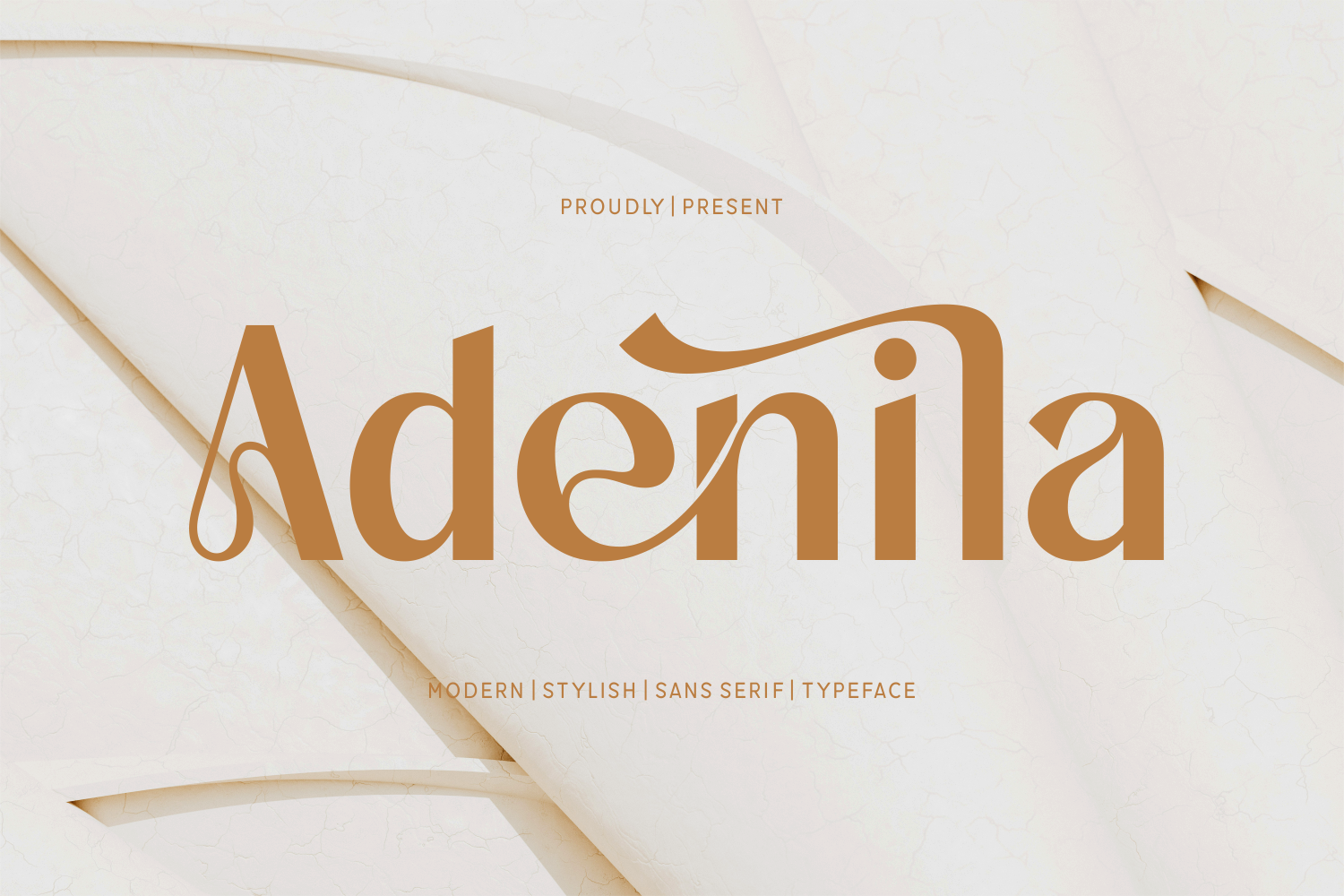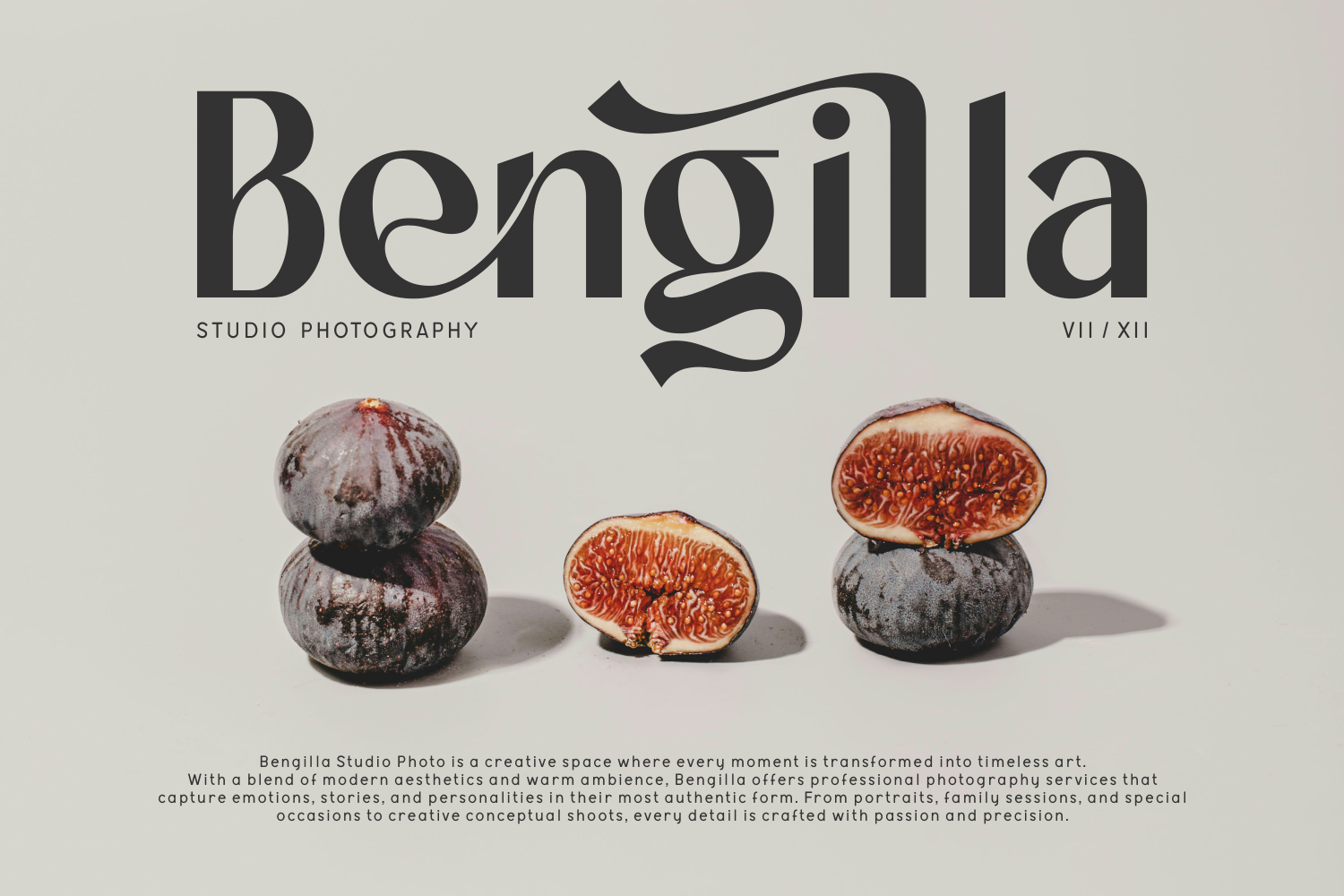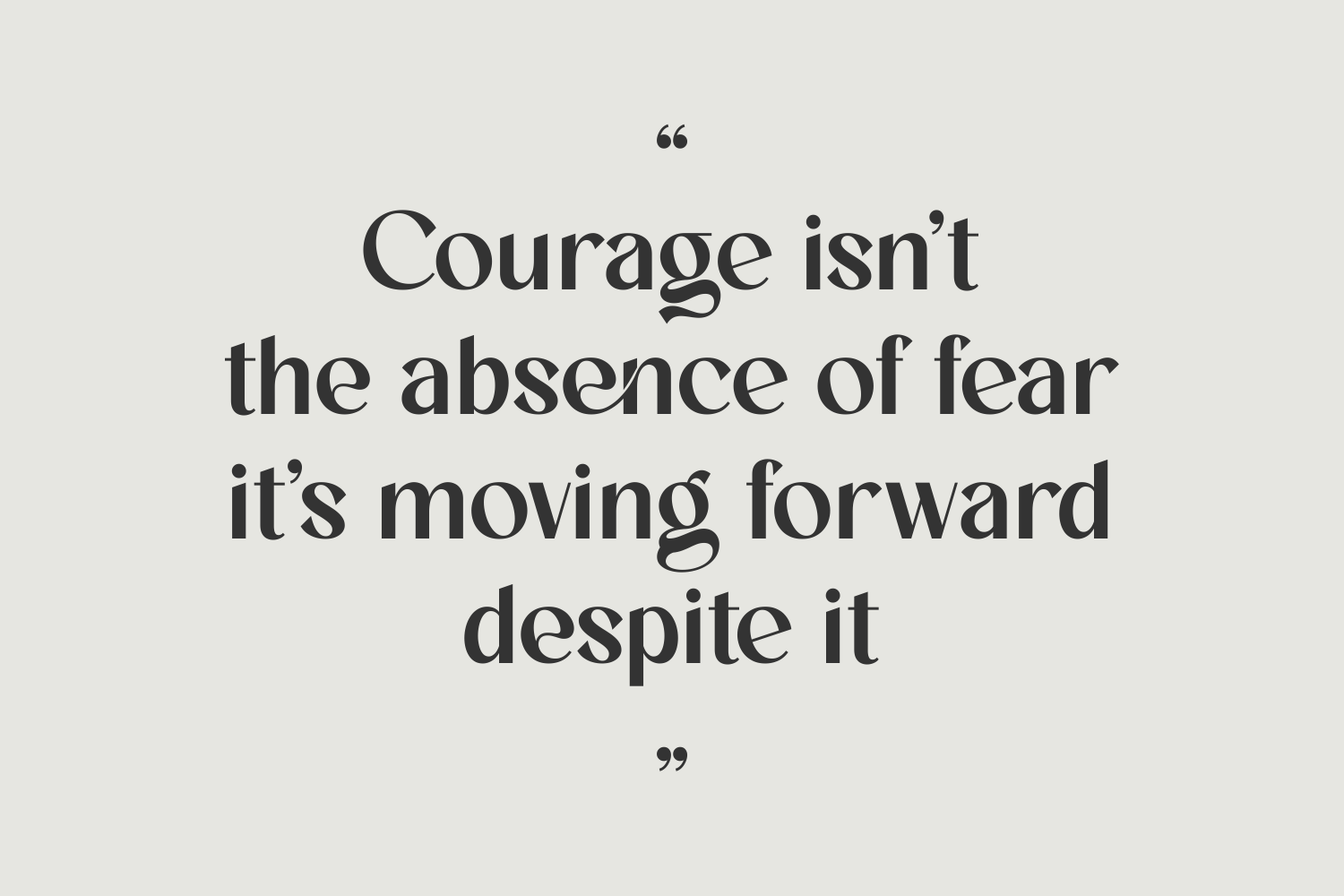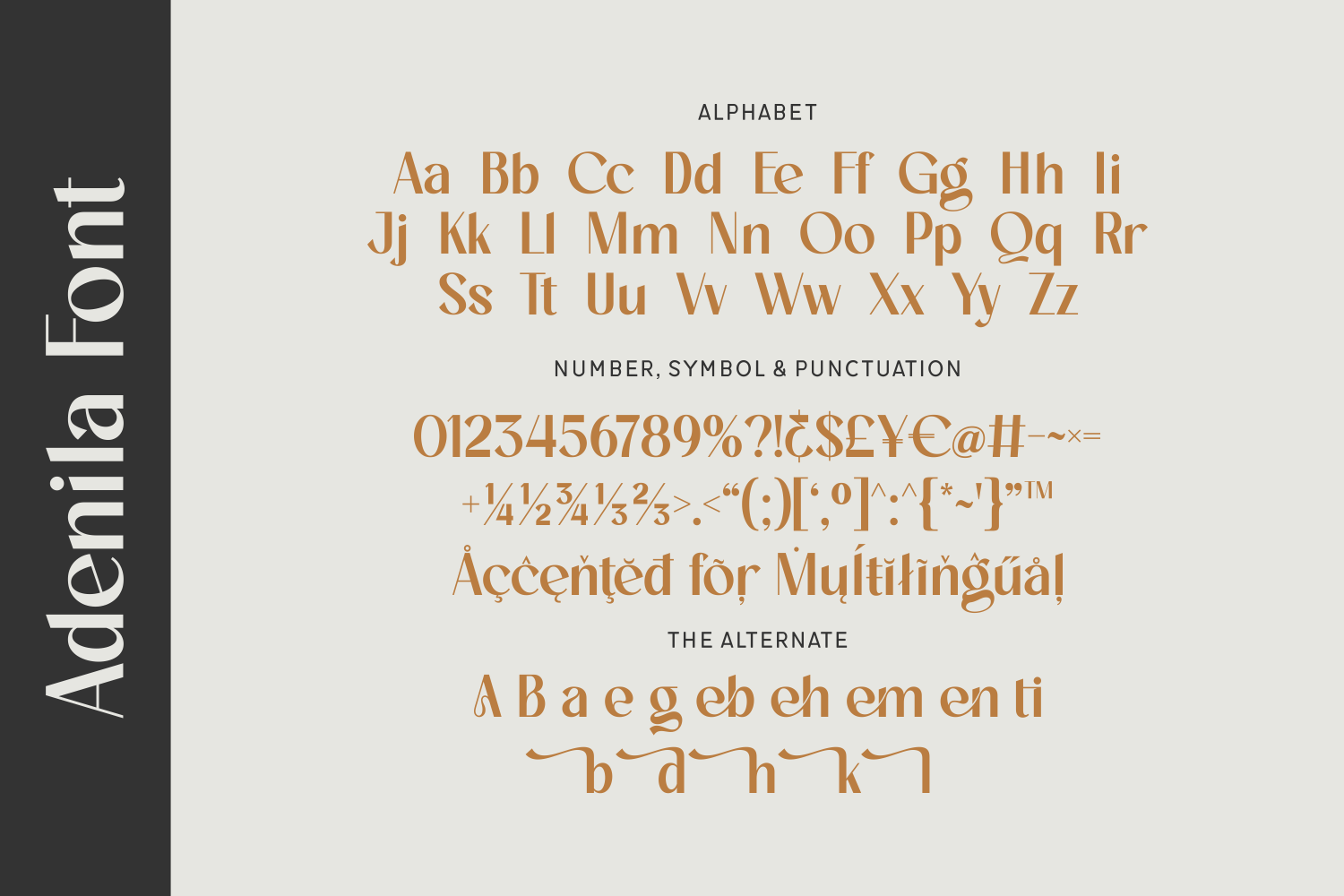
Adenila is a modern sans serif font that blends sleek minimalism with luxurious curves. Featuring unique ligatures and stylish swashes, it exudes elegance while maintaining legibility. Perfect for branding, editorial designs, fashion logos, and premium packaging.